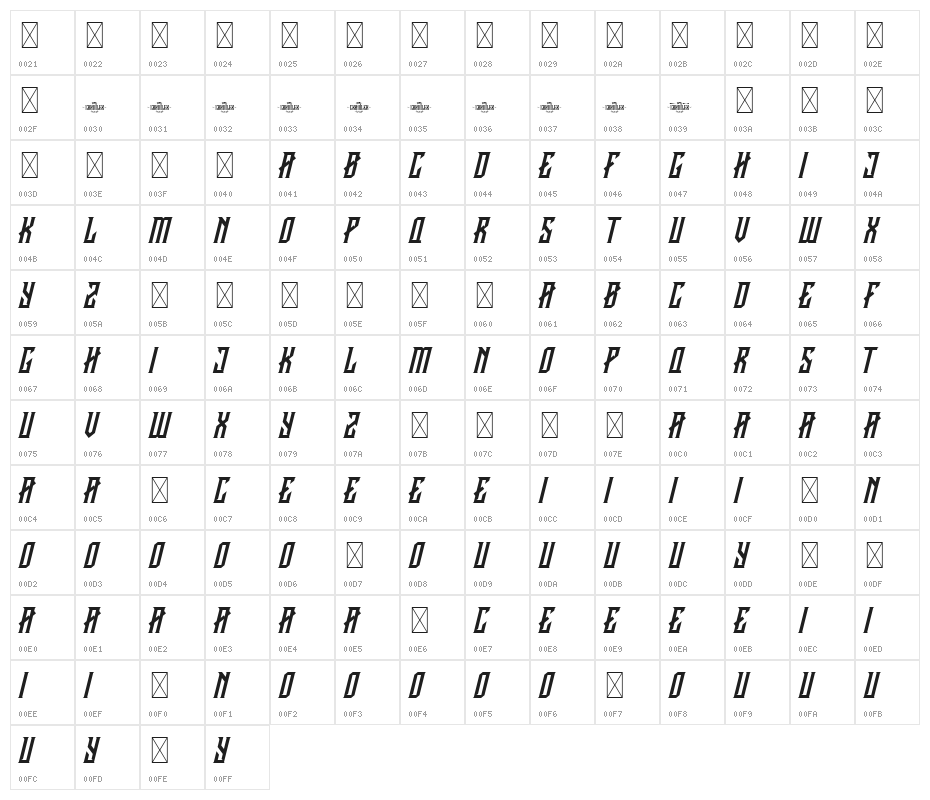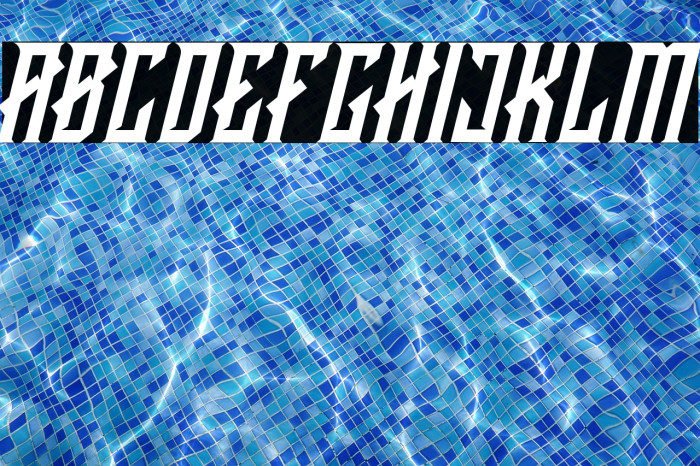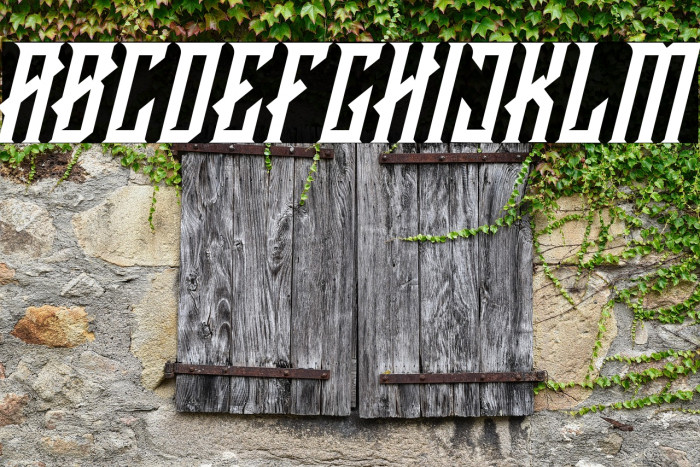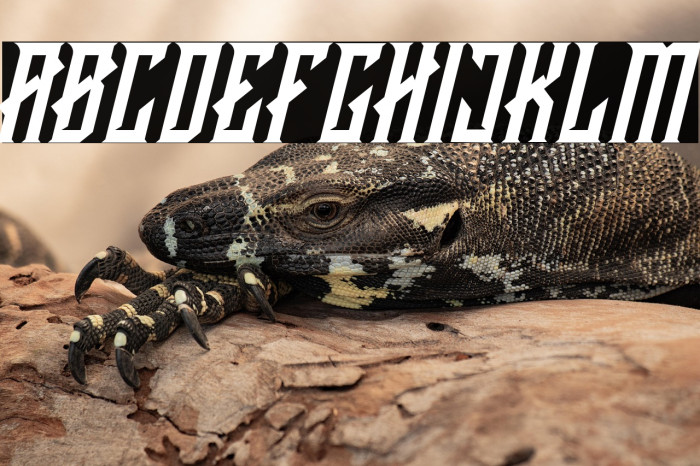
CRAWLER Italic Demo Font
CRAWLER Italic Demo Description
This font features a bold, italicized style with a strong geometric influence. The characters are sharply angled, giving a dynamic and aggressive appearance. The uppercase and lowercase letters maintain a consistent slant, enhancing the italic effect. The font's design is reminiscent of futuristic or sci-fi themes, with a distinct edge that makes it stand out. The stroke contrast is medium, providing a balance between readability and stylistic flair. The spacing between characters is tight, which contributes to its compact and cohesive look. This font is ideal for projects that require a modern, edgy aesthetic.
| Overall Style | Futuristic, Modern |
| Proposed Projects | Ideal for sci-fi themed designs, video game titles, posters, and branding that requires a modern, edgy look. |